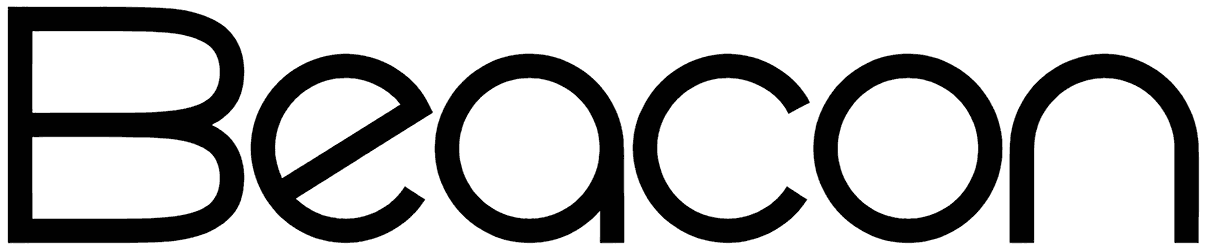
Beacon Font
Usually, beauty lies down in simplicity; here, we are unveiling a simple rounded font with a futuristic effect as if it attempts to prove its speedy and animate identification to all of us.
The neat sans serif font with approachable characters comes closer to getting you this possibility to apply it in your coming set up and promote your branding, website, apps, or much more without any time-consuming. So, be quick to try Beacon and share the sociable vibe!